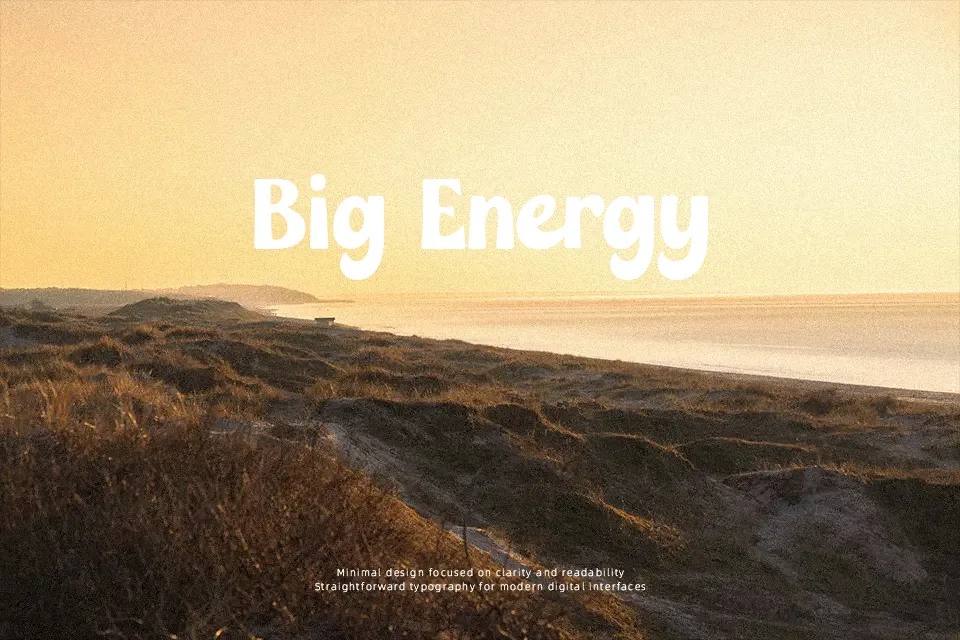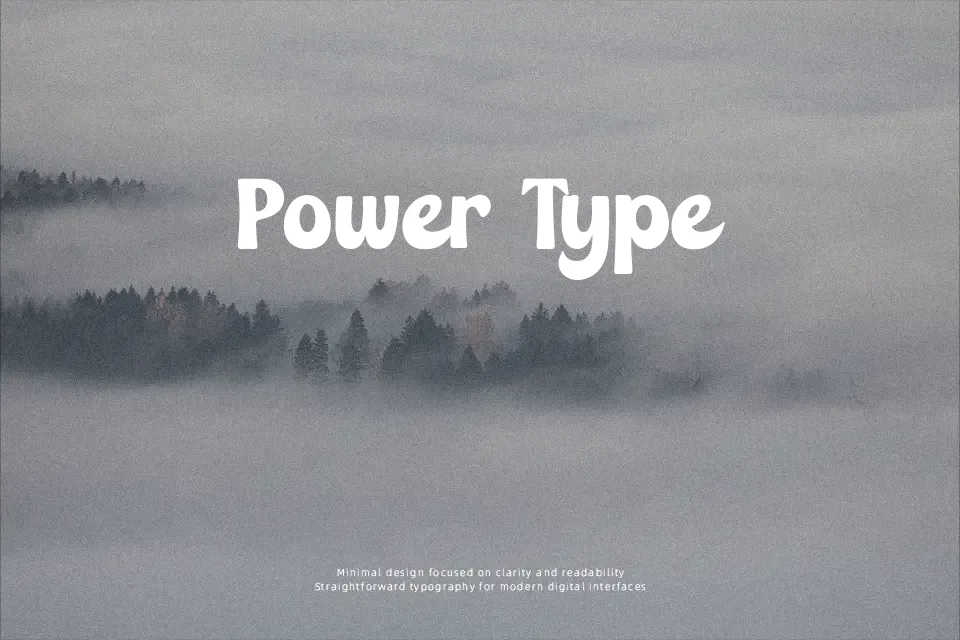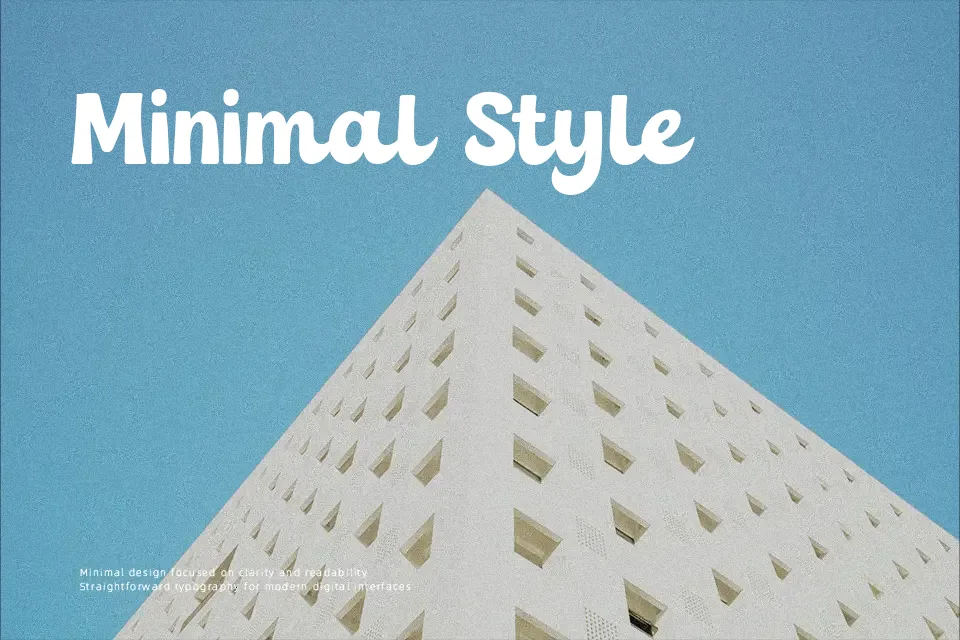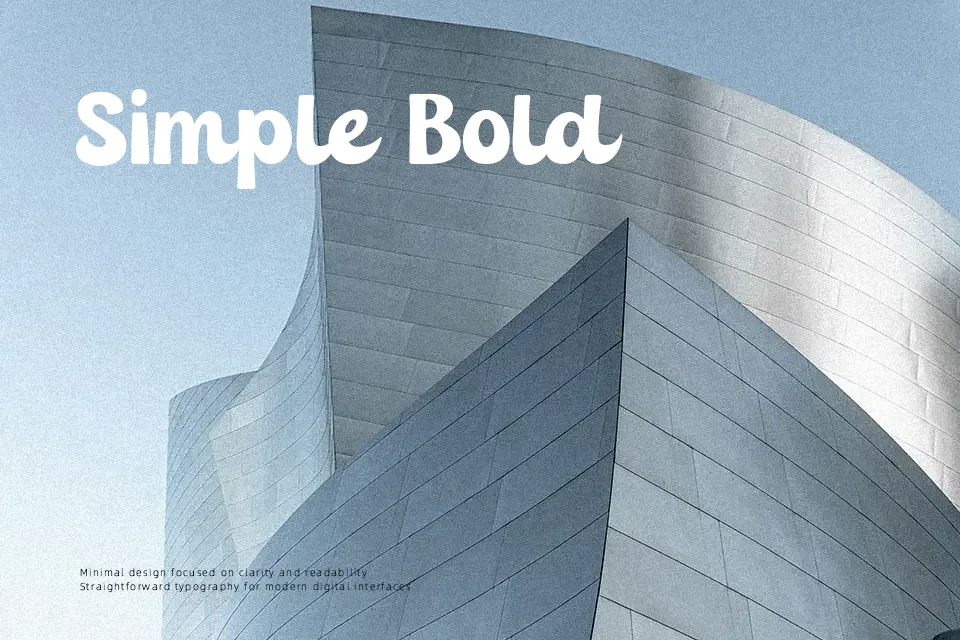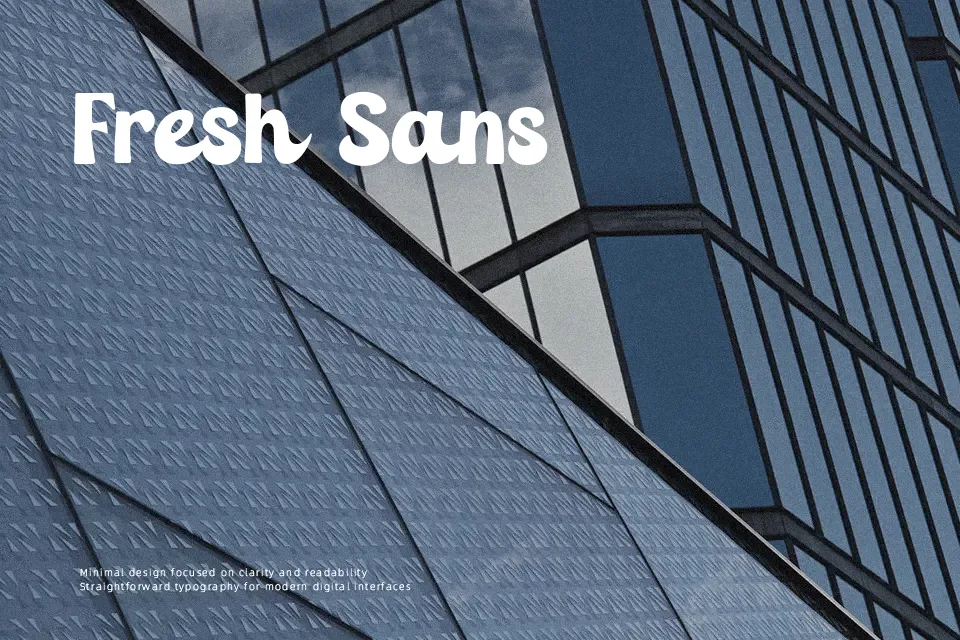
The Rolling Stone Font
Designed by Cat.B
The Rolling Stone Font introduces a rhythmic display presence defined by thick swelling curves, soft rounded terminals, and low stroke contrast. Characters sit tightly against each other with generous x-heights and flared stems that evoke classic psychedelic lettering. While this compact spacing and weighty anatomy provide immense personality for oversized concert titles and merchandise logos, the dense silhouettes become muddy in compact mobile interfaces. Extended text blocks also suffer from visual fatigue due to the repetitive swell of each contour. The letterforms excel when treated as a bold graphic element rather than functional body copy, rewarding generous layout breathing room.
Best For: music festival posters, retro apparel graphics, vintage vinyl record covers
Not Ideal For: long body paragraphs, mobile interface labels, technical documentation tables
Perfect for headline, logo, and music, with a bold and decorative style.